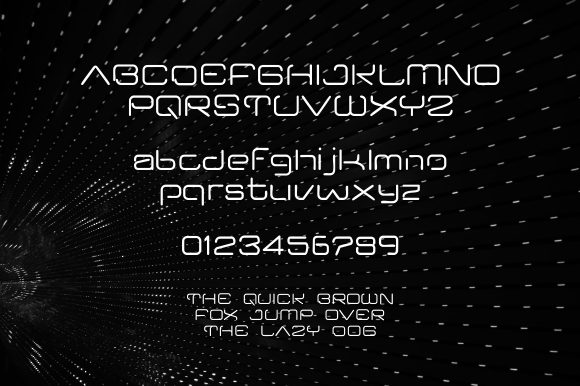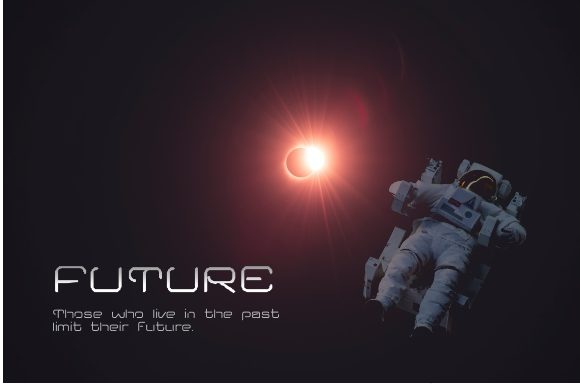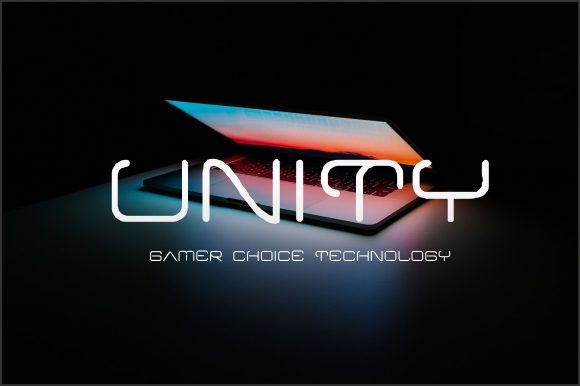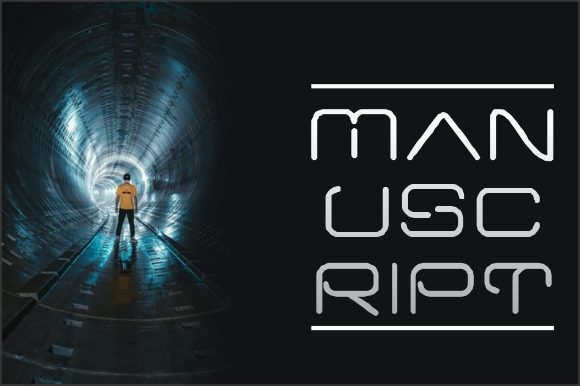
Aurions Font: Elevate Your Designs with a Simple yet Modern Display Font
In the realm of typography, a font can make or break the visual appeal of a design. For designers and crafters seeking a typeface that exudes simplicity, modernity, and cleanliness, Aurions Font is an exceptional choice. This display font boasts an undeniably clean feel, making it perfect for a wide range of design applications. In this article, we’ll delve into the features, benefits, and uses of Aurions Font, exploring how it can elevate your designs to new heights.
The Essence of Aurions Font
Aurions Font is characterized by its neat and beautiful arrangement of letters. This simple yet modern display font is designed to provide an air of sophistication and elegance to any design. The clean lines, precise curves, and balanced spacing of Aurions Font create a visually appealing effect that captures the attention of viewers. Whether you’re working on a formal or non-formal design, this typeface is sure to make a lasting impression.
Key Features of Aurions Font
- Clean and Simple Design: Aurions Font features a minimalist approach, ensuring that your designs look crisp and uncluttered.
- Modern Aesthetic: The font’s modern design makes it perfect for contemporary projects, from branding and advertising to digital media and publishing.
- Neat Letter Arrangement: The carefully crafted letters in Aurions Font are spaced and arranged to create a harmonious visual flow.
- Versatility: This display font can be used in a variety of design applications, including headings, titles, logos, and more.
Benefits of Using Aurions Font
Aurions Font offers several benefits that make it an attractive choice for designers and crafters:
- Enhanced Readability: The clean and simple design of Aurions Font ensures that your text is easy to read, even at smaller sizes.
- Professional Look and Feel: The modern aesthetic and elegant lettering of Aurions Font give your designs a professional and polished appearance.
- Time-Saving: With Aurions Font, you can quickly create stunning designs without spending hours on typography and layout.
Design Applications for Aurions Font
Aurions Font is an incredibly versatile typeface that can be used in a wide range of design applications:
- Branding and Logo Design: Create a lasting impression with a custom logo or brand identity that showcases Aurions Font.
- Advertising and Marketing: Use Aurions Font in your advertising materials, such as brochures, flyers, and social media graphics.
- Digital Media: Enhance your website, blog, or social media profiles with Aurions Font, adding a touch of modernity and sophistication.
- Publishing and Editorial Design: Use Aurions Font in your publications, such as magazines, newspapers, and books, to create engaging and readable content.
Aurions Font is a simple yet modern display font that offers a clean and elegant solution for designers and crafters. With its beautiful arrangement of letters, versatility, and numerous benefits, this typeface is sure to become a staple in your design arsenal. Whether you’re working on a formal or non-formal design, Aurions Font is the perfect choice for creating stunning visuals that capture the attention of your audience.